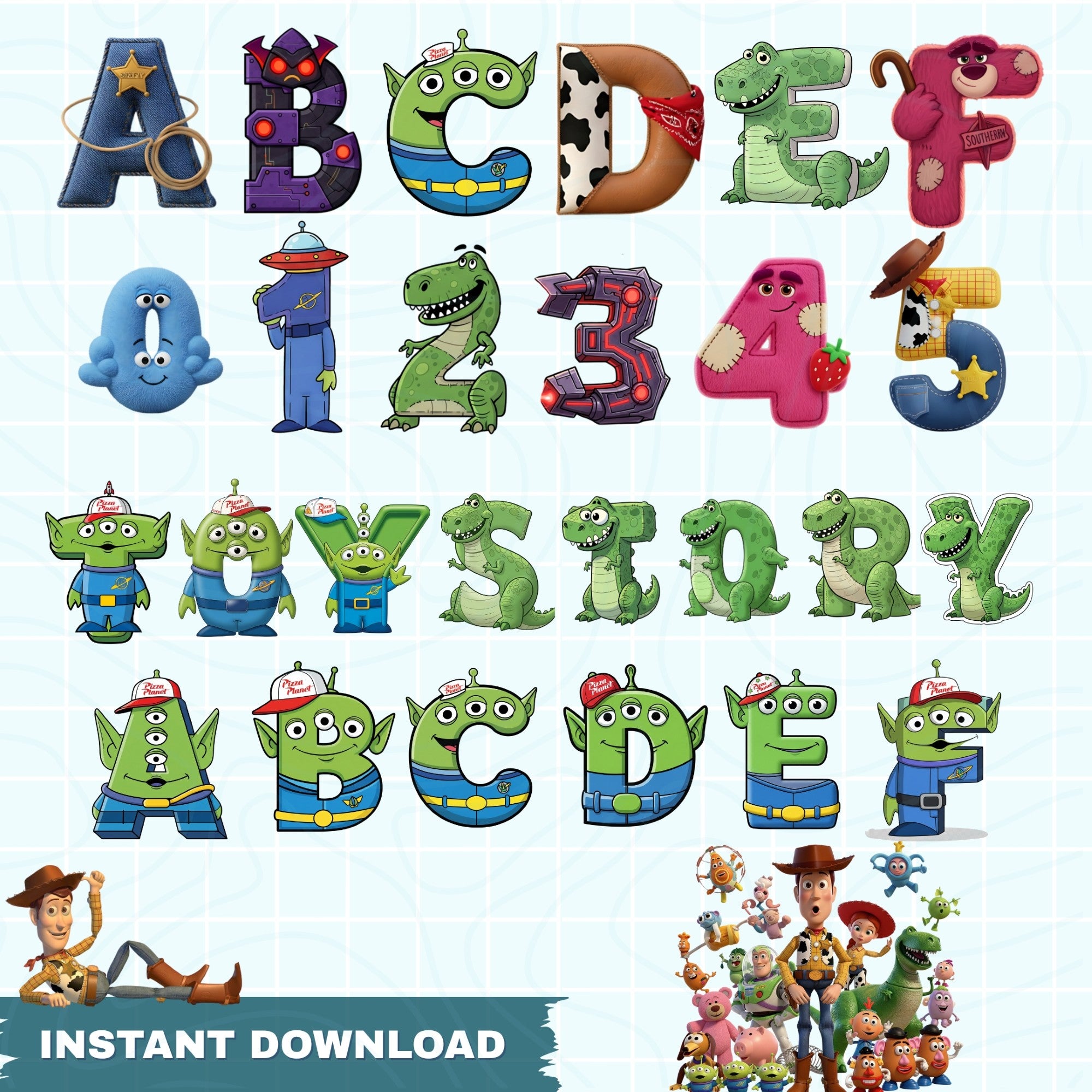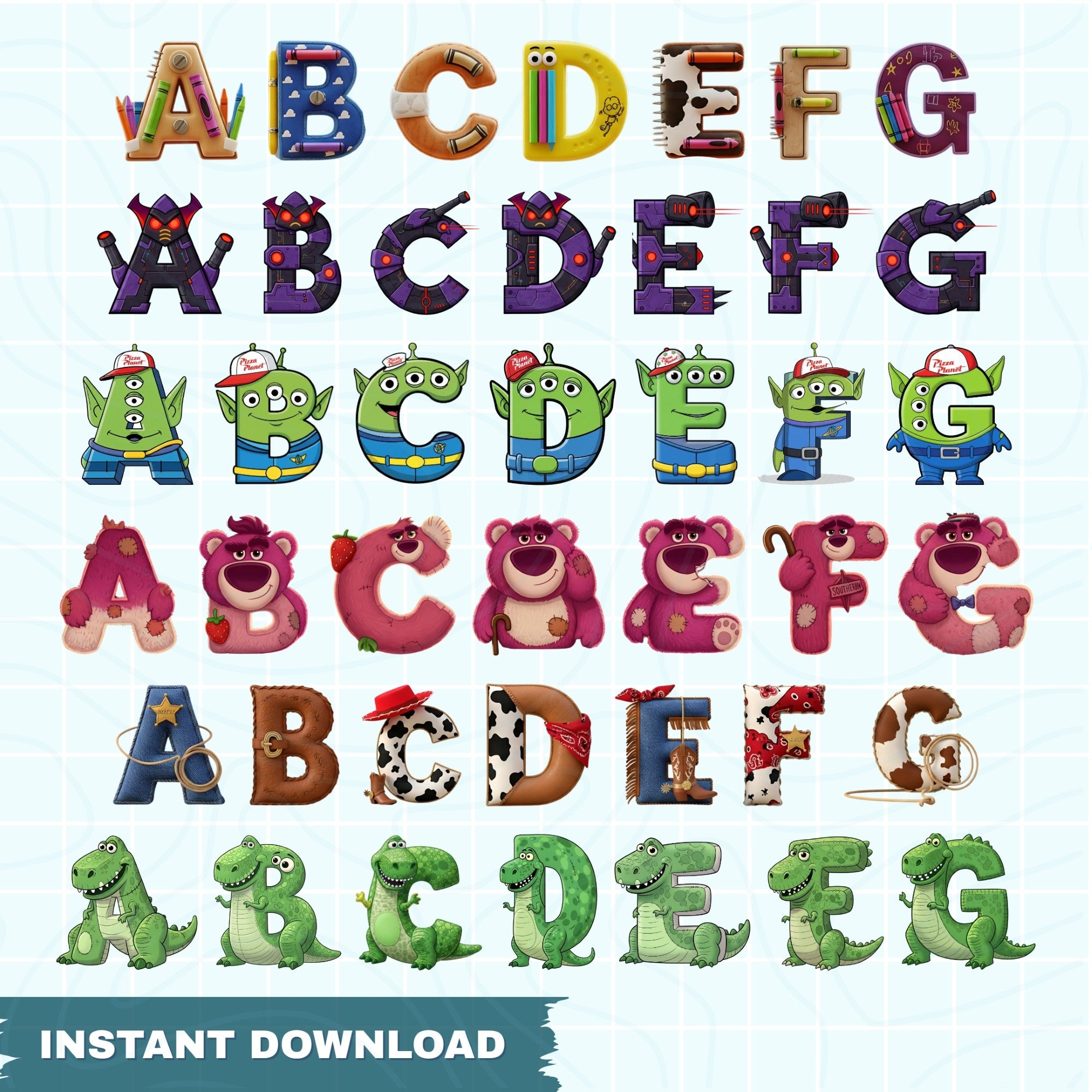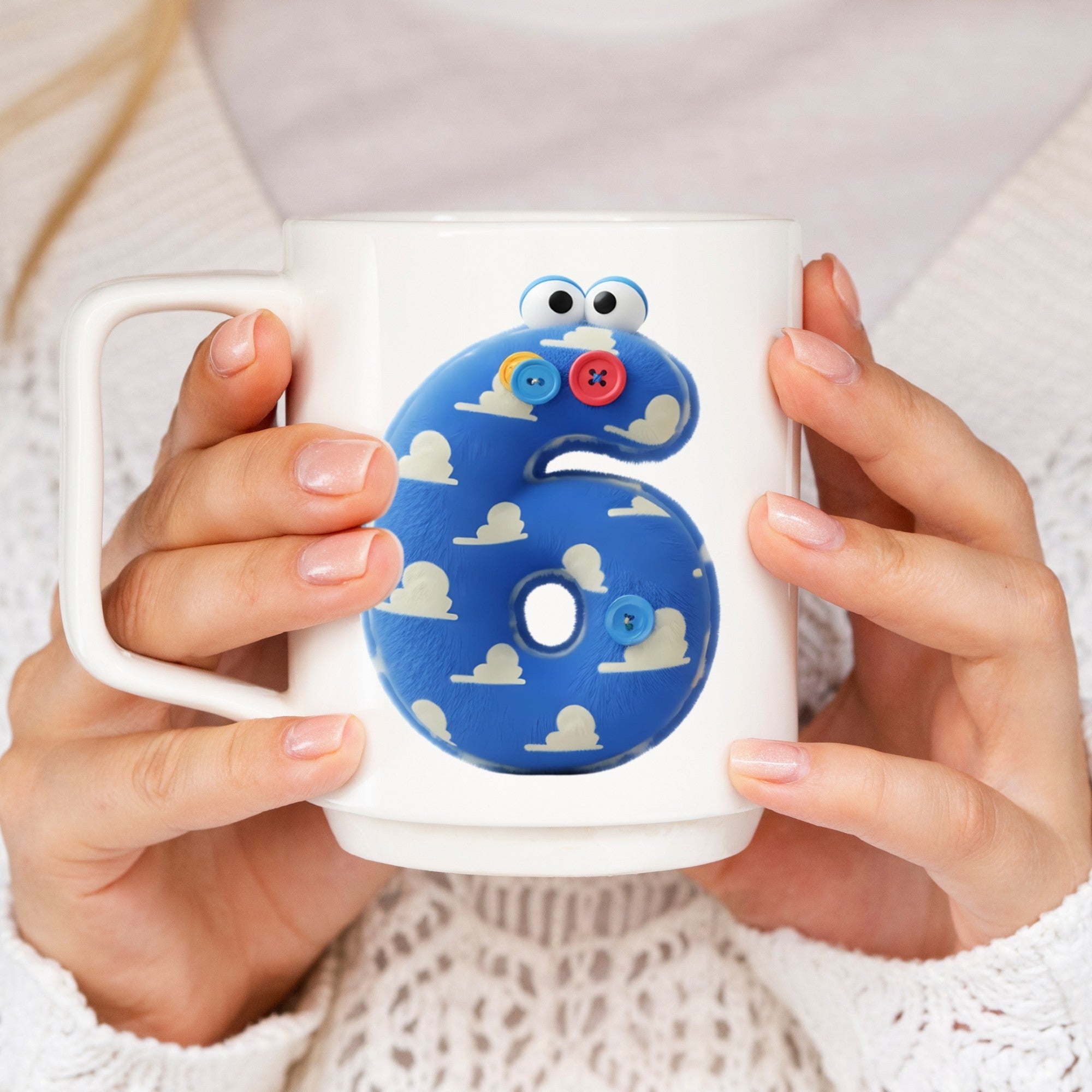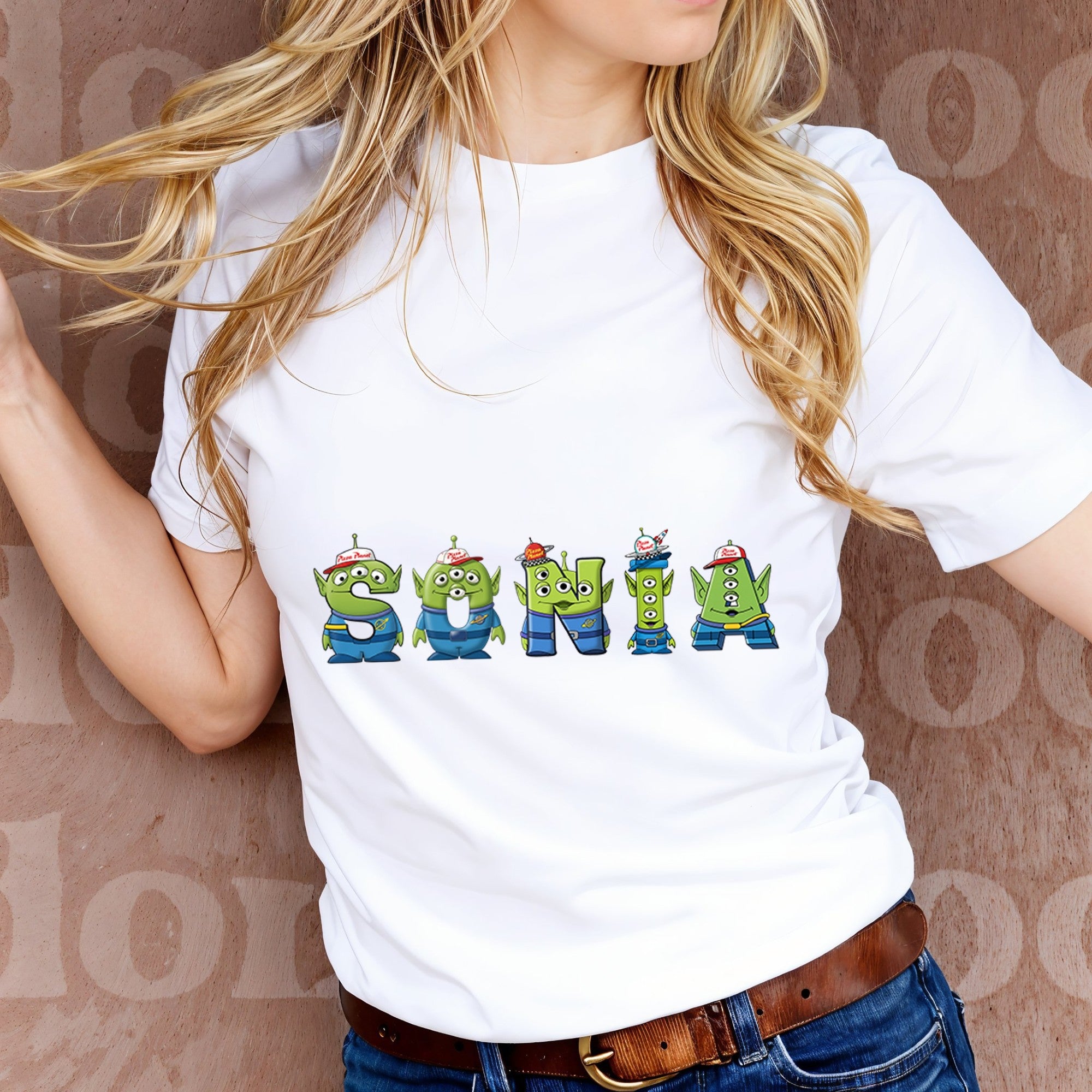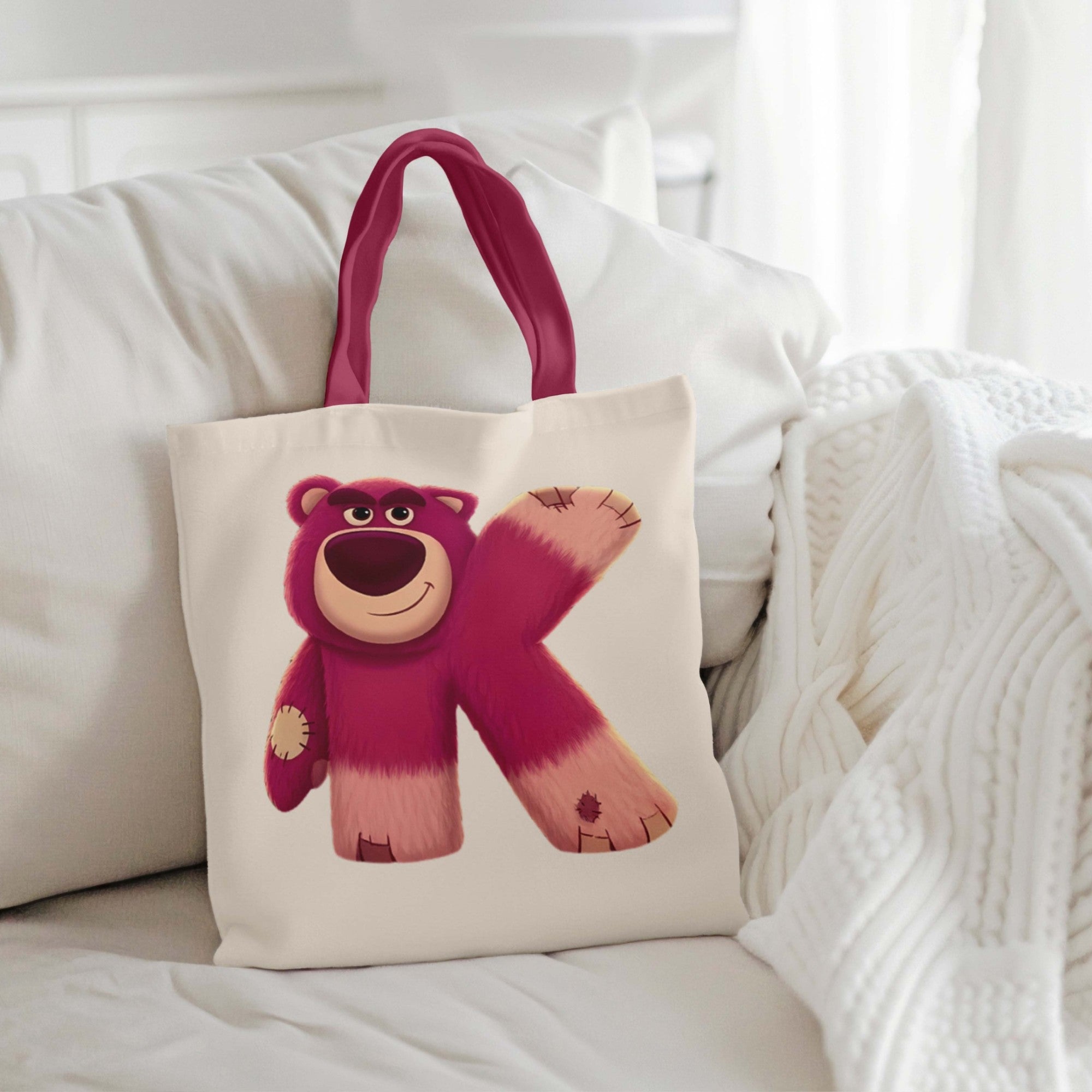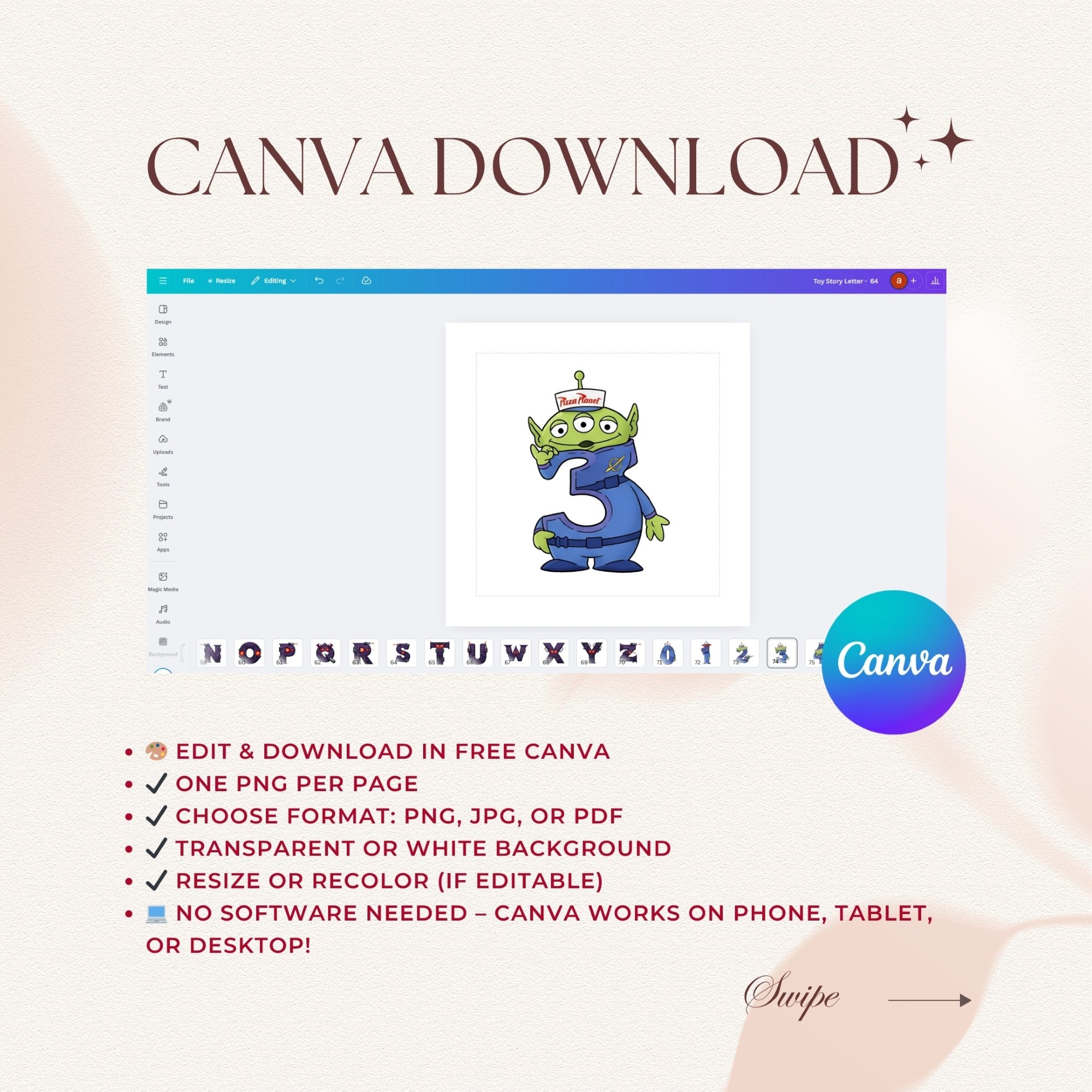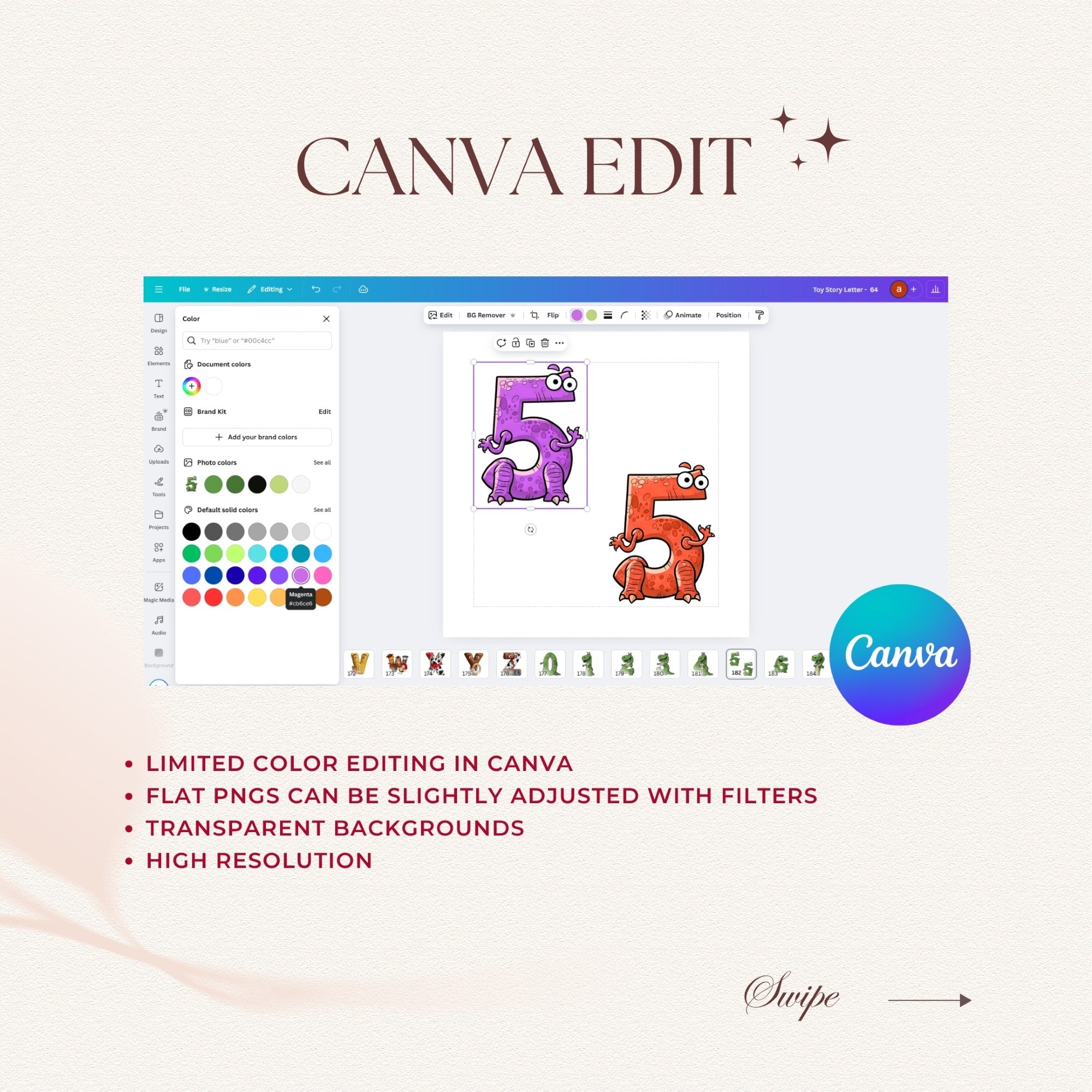
🚀 To infinity... and beyond with our Toy Story Alphabet & Numbers Bundle! 🤠
This massive digital collection is packed with over 100 high-quality designs, including a full alphabet and numbers set designed to look like your favorite Toy Story characters. Perfect for creating custom names, phrases, and birthday signs, this bundle is a must-have for any Toy Story fan.
💙 Included Characters & Styles:
• The complete A-Z alphabet and 0-9 numbers in a variety of Toy Story themes
• Letters inspired by Woody, Buzz, the Aliens, and more